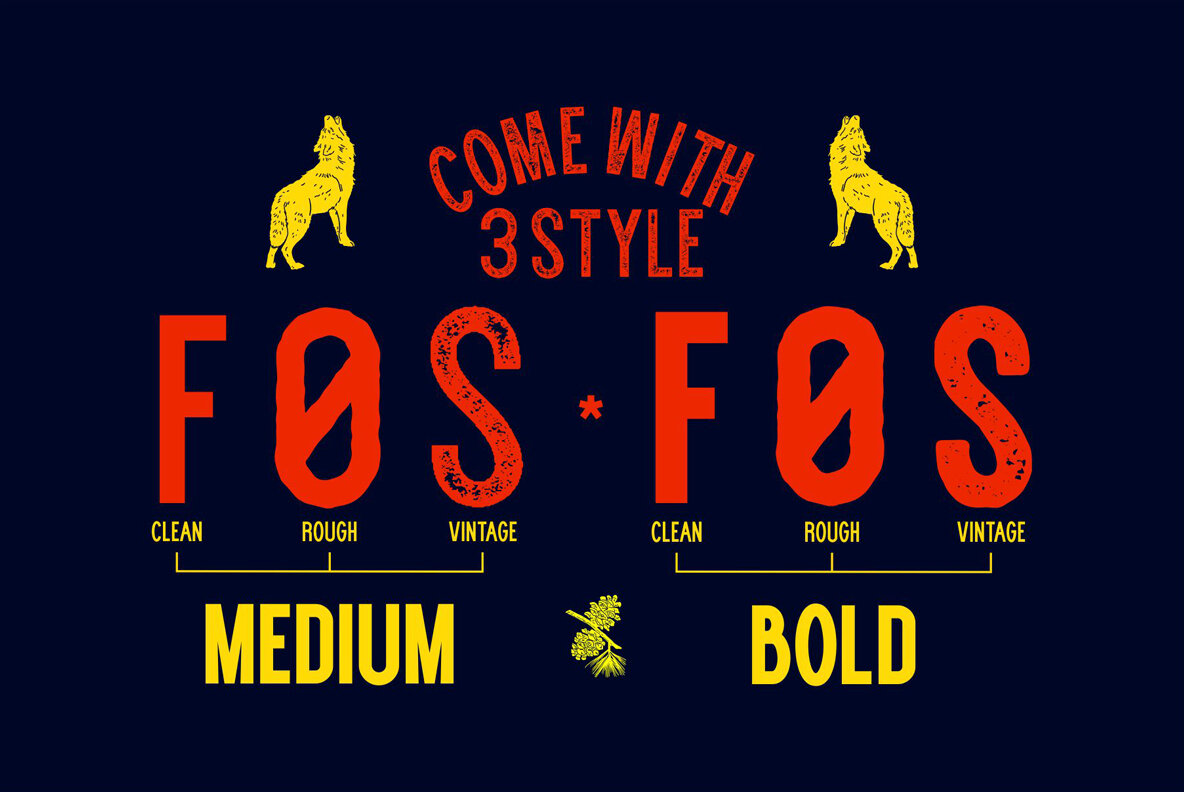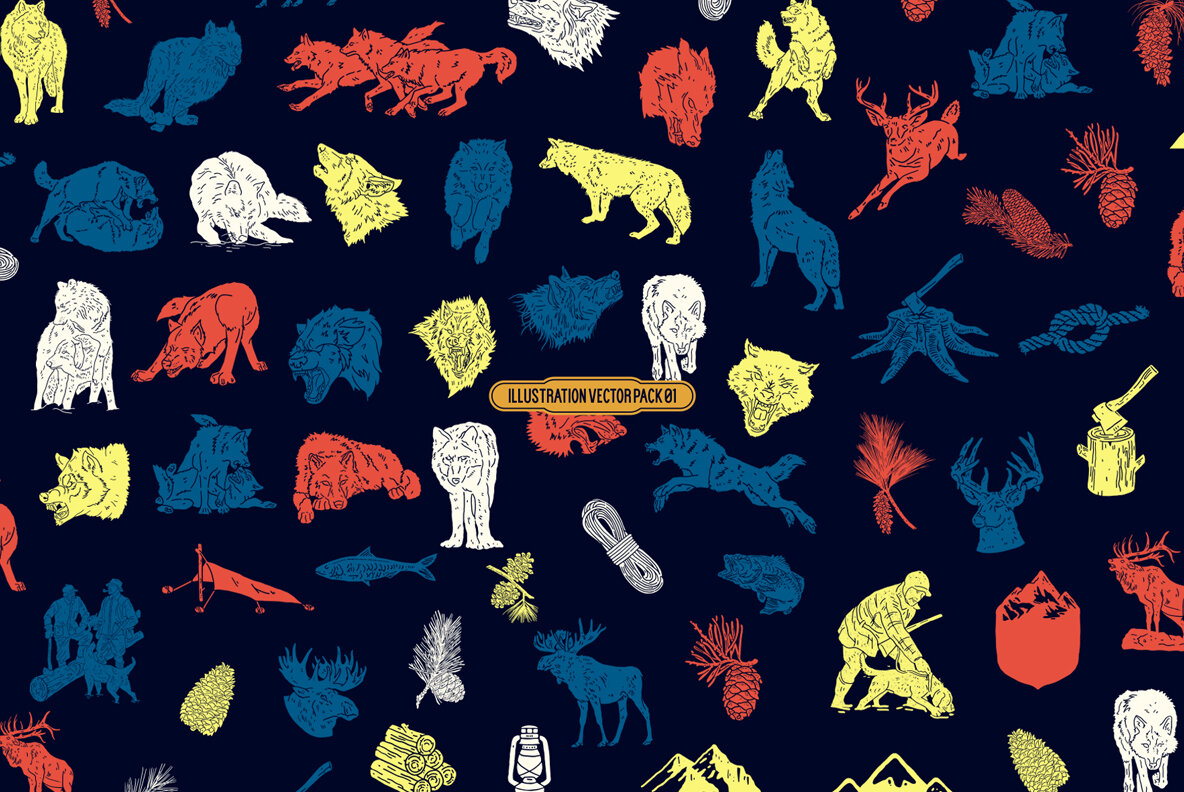
Wolf Gang Font
WOLF GANG is one of the fonts that I made with the concept of the wild, by adding pictorial elements like wolves and other wild life, making this font have a soul in it. Make your best design with this font for any purpose, such as t-shirts, logos, poster designs, magazines, signs, and more.
The complete family also includes the Wolf Gang Illustration Vector EPS.